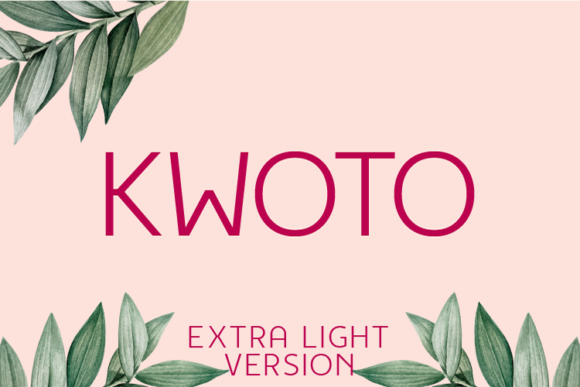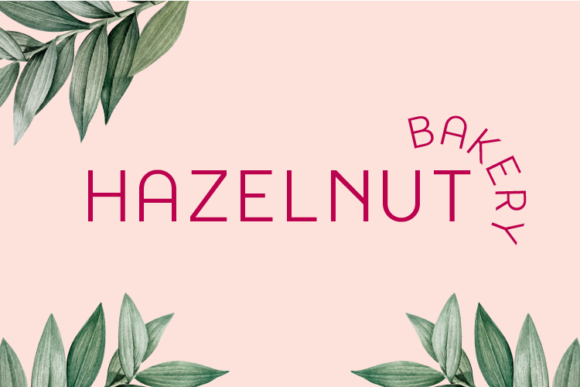
Kwoto Extra Light Font
About Kwoto Extra Light Font
Kwoto Extra Light is a brand new sans serif font.
This font is ideal for branding and decorating any of your projects.
It can be used in a wide variety of applications from logos, posters, book covers to anything else you can think of.